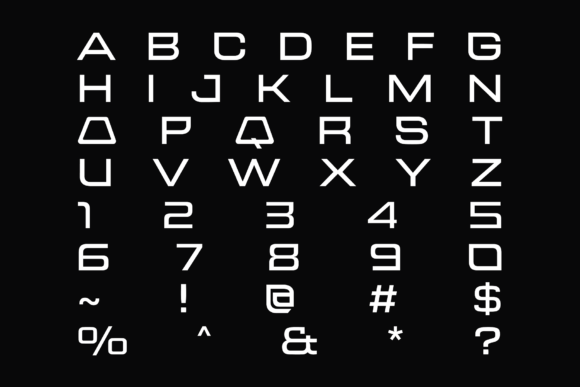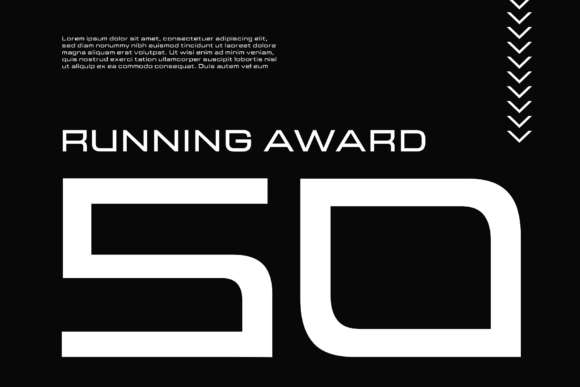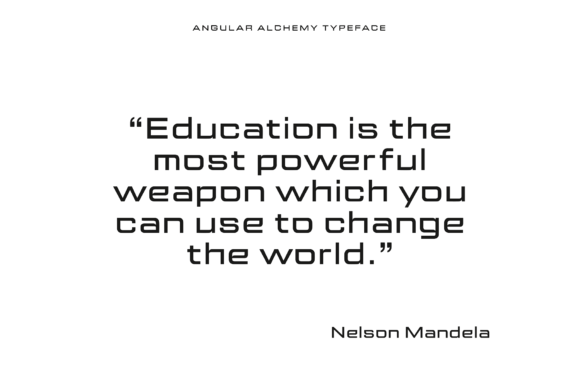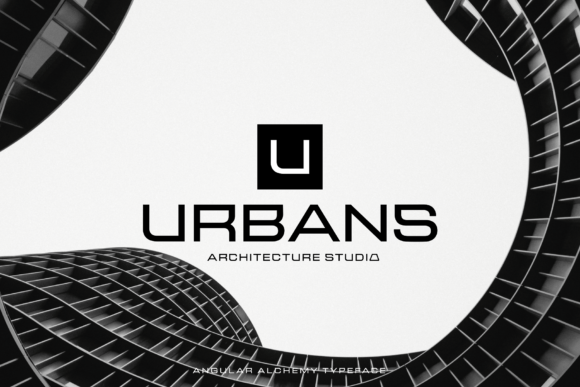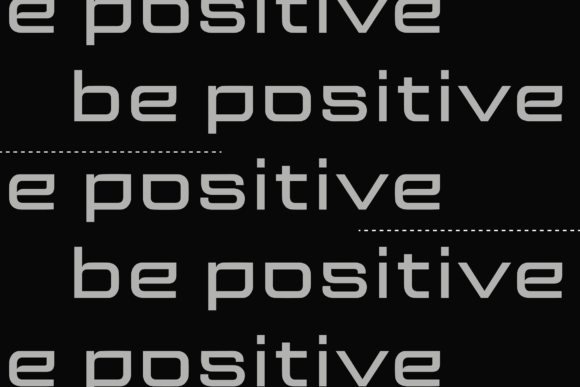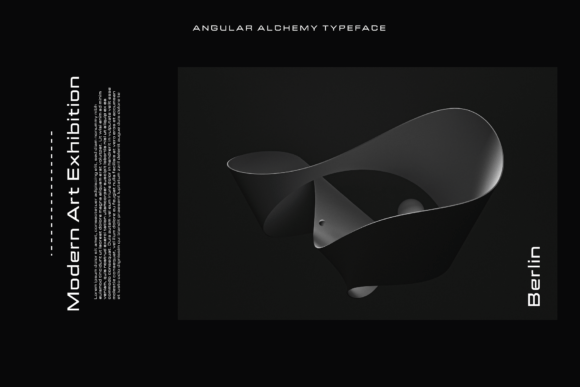
Discover the Magic of Angular Alchemy Font: Introducing Northura
In the realm of typography, few fonts have managed to strike a perfect balance between elegance, versatility, and legibility. However, Northura, a modern sans typeface, has emerged as a game-changer, effortlessly merging minimalism, beauty, and readability in perfect harmony. This stunning font is set to revolutionize the way designers approach typography, offering an extensive range of 30 weights to choose from, ensuring unparalleled flexibility and precision.
The Essence of Modern Aesthetics
Northura’s clean and sleek lines evoke a sense of contemporary sophistication, making it an ideal choice for a wide range of projects, from editorial layouts to branding materials. Its modern sans-serif design ensures that your designs exude a sense of freshness and modernity, perfect for designers and crafters looking to create a lasting impression on their audience. Whether you’re aiming for a sleek and professional look or a stylish and artistic approach, Northura has got you covered.
Unparalleled Flexibility
One of the standout features of Northura is its extensive range of 30 weights, providing designers with the flexibility to tailor their designs with precision and finesse. This vast array of weights ensures that you can use Northura for a multitude of applications, from headlines and titles to body text and captions. The font’s versatility is further enhanced by its ability to work seamlessly in various contexts, including:
- Editorial layouts: Use Northura to create stunning magazine spreads, newspapers, and books that demand attention and readability.
- Branding materials: Employ Northura to craft memorable logos, business cards, and letterheads that reflect your brand’s personality and values.
- Digital platforms: Leverage Northura’s clean lines and modern aesthetic to create engaging digital content, including website headers, social media graphics, and mobile app interfaces.
Redefining Your Typographic Journey
Northura is more than just a font – it’s an experience. Its timeless elegance and versatility invite designers to reimagine their typographic journey, pushing the boundaries of creativity and innovation. By embracing Northura, you’ll be able to:
- Elevate your designs: Northura’s sophisticated aesthetic and precision-crafted lines will instantly elevate your designs, setting them apart from the ordinary.
- Streamline your workflow: With 30 weights to choose from, you can rely on Northura for a wide range of projects, reducing the need for multiple fonts and streamlining your design process.
- Inspire your audience: Northura’s captivating presence will leave a lasting impression on your audience, drawing them in and engaging them with your message.
Designing with Northura
To get the most out of Northura, designers can experiment with various weights, sizes, and colors to create visually stunning compositions. Here are some tips for designing with Northura:
- Mix and match weights: Combine different weights to create visual hierarchy and add depth to your designs.
- Play with sizes: Use Northura’s extensive range of weights to create engaging typographic contrast, from large headlines to smaller body text.
- Experiment with colors: Northura’s clean lines and modern aesthetic make it an excellent choice for use with bold, bright colors or subtle, muted tones.
In conclusion, Northura is a game-changing font that embodies the perfect blend of elegance, versatility, and legibility. With its extensive range of 30 weights, clean lines, and modern aesthetic, Northura is poised to revolutionize the world of typography. Whether you’re a designer, crafter, or simply a typography enthusiast, Northura invites you to embark on a new typographic journey, one that is marked by sophistication, creativity, and innovation.